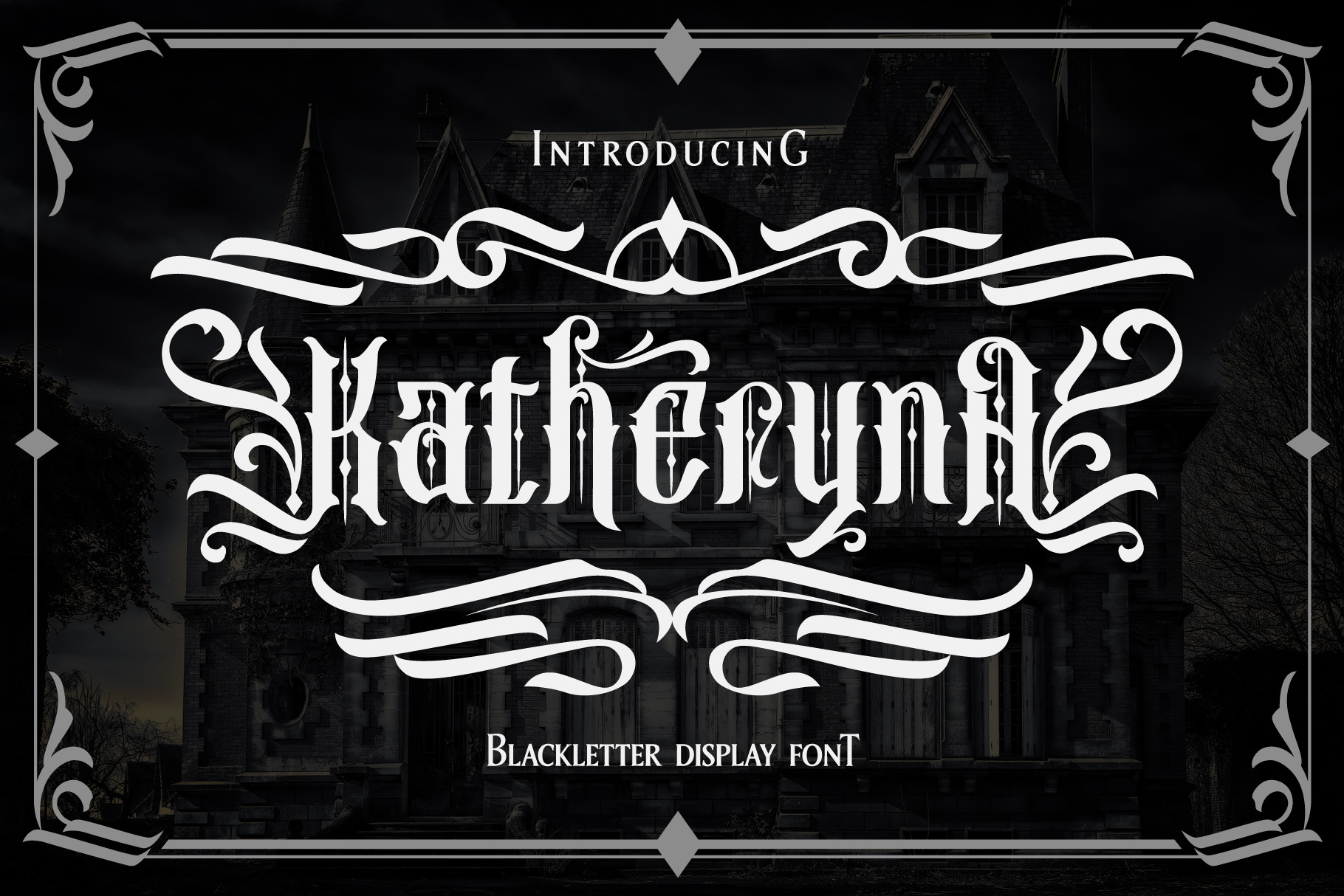
Katheryna Typeface
Introducing Katheryna, the new exploration of blackletter font. Carefully crafted with medium details. The ornamental font inspired from fraktur calligraphy and gothic taste. Designed for your various design project especially in headline. Create your combination with many features like ligatures, alternates and more. Complete with multilingual accent. Also you can make it as all-caps typography with 2 fonts inside.